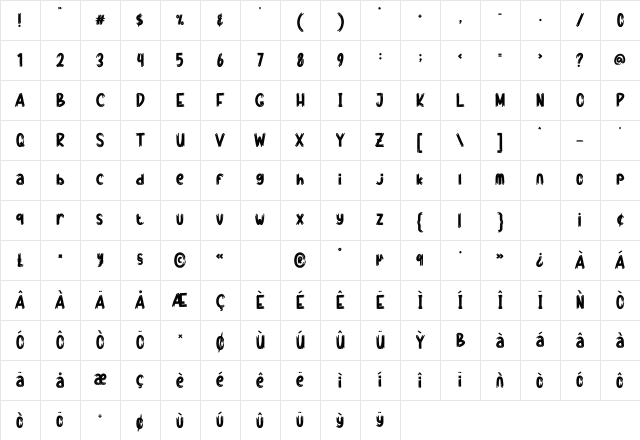
Haunted Hospital Regular
Design Context for Haunted Hospital
Haunted Hospital is a composed and adaptable typeface that performs quietly and consistently across a wide range of design contexts.